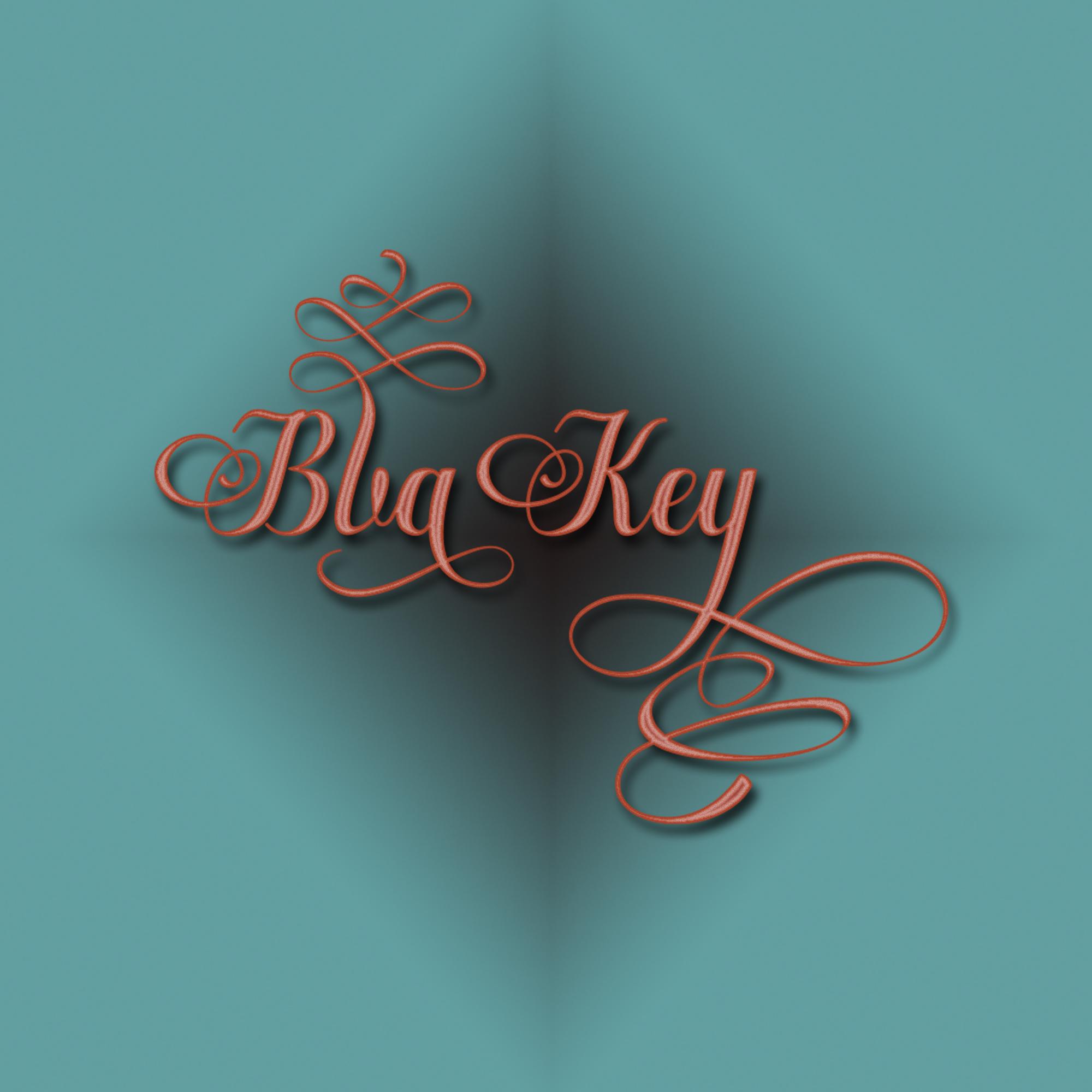
Nurhalifa Font Description
Nurhalifa is an exquisite handwritten font, masterfully designed to become a true favorite. It maintains its classy calligraphic influences while feeling contemporary and fresh. Fall in love with it and bring your projects to the highest levels!